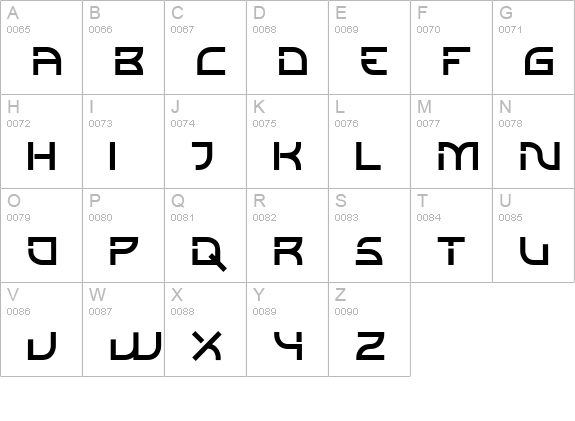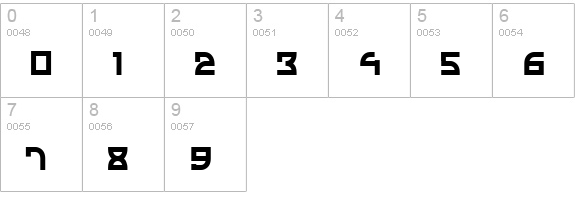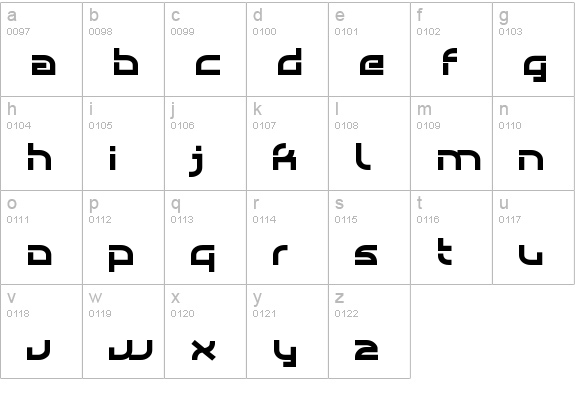
Individigital font is a stunning typeface that beautifully combines modern design elements with a touch of vintage charm. Its unique and elegant letterforms make it perfect for various design projects, from branding and logo design to editorial layouts and website headers. This versatile font offers a wide range of weights and styles, allowing you to create captivating and eye-catching typography. Whether you're aiming for a bold and impactful message or a subtle and sophisticated look, Individigital has got you covered. One of the best things about Individigital font is that it is available for free. Yes, you heard it right! This incredible font can be freely downloaded at FontsMarket.com. So, you don't have to worry about breaking the bank to add this gem to your font library. Individigital font's clean and crisp lines, coupled with its subtle curves and unique character shapes, give your designs a professional and polished appearance. Its excellent legibility ensures that your message is conveyed effectively, even in small sizes or on screens. With Individigital font, you can unleash your creativity and bring your design visions to life. Whether you're working on a personal project or a client's assignment, this font will elevate your work to new heights. So, don't miss out on this incredible opportunity to enhance your design arsenal with the freely available Individigital font from FontsMarket.com.